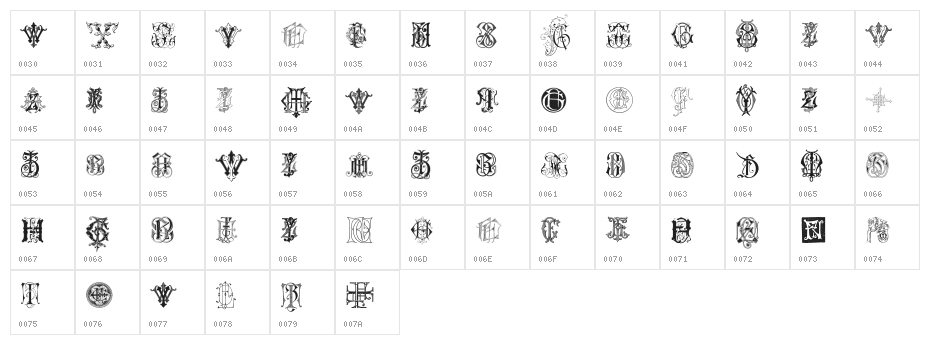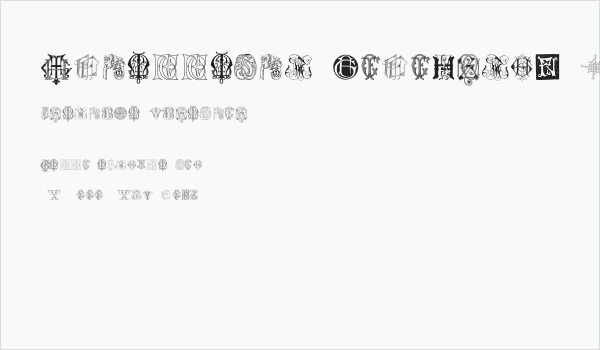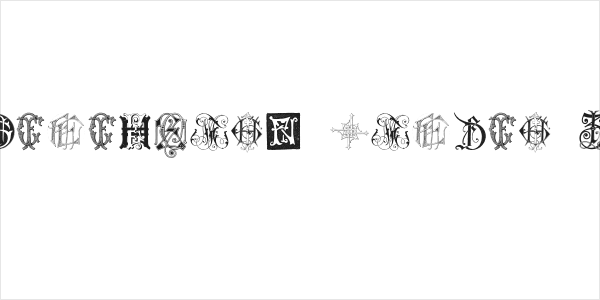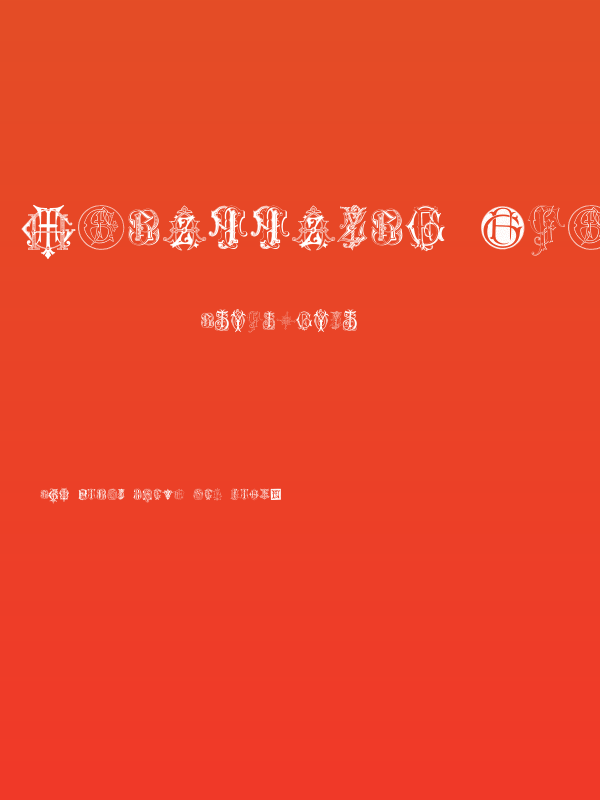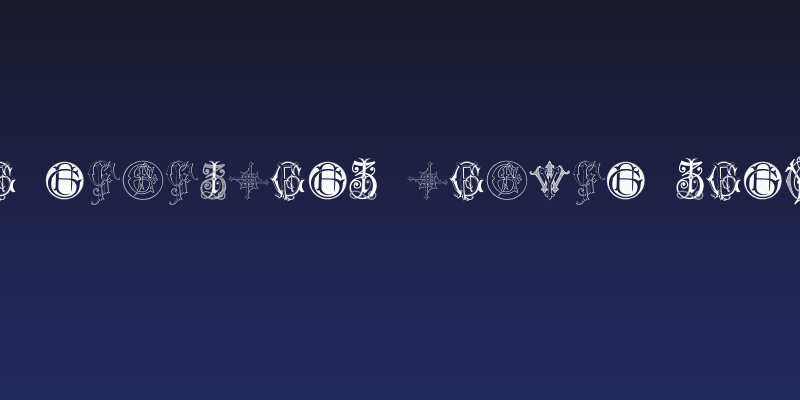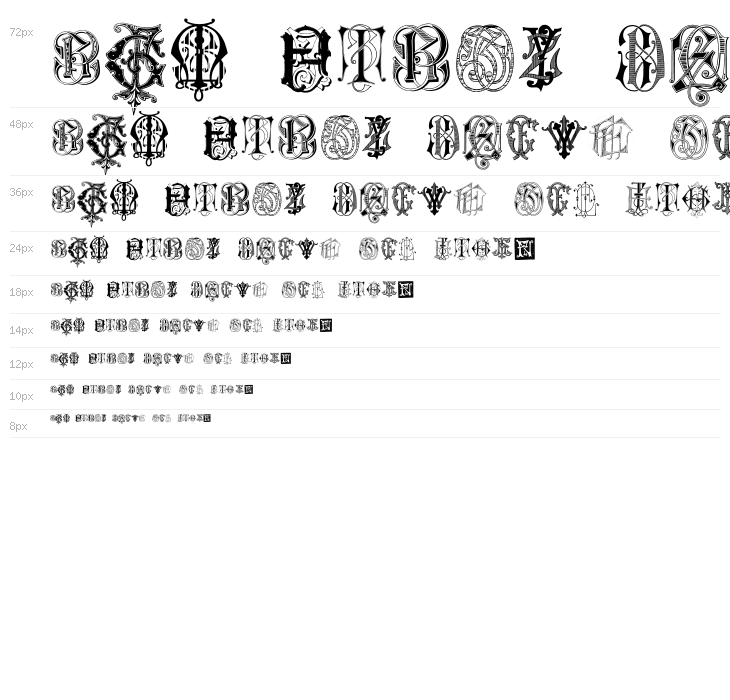
Intellecta Monograms Random Samples Seven Font
Intellecta Monograms Random Samples Seven Description
This font is an intricate and highly decorative typeface that features elaborate monogram-style letters. Each character is uniquely designed with ornate flourishes, intertwining lines, and detailed embellishments, creating a sense of elegance and sophistication. The letters are reminiscent of vintage calligraphy and heraldic symbols, with a strong emphasis on artistic expression. The complexity of the design makes it suitable for special occasions and projects that require a touch of luxury and historical charm.
| Overall Style | Vintage |
| Use Case | Logos, Invitations, Decorative elements |
| Proposed Projects | Ideal for wedding invitations, luxury branding, historical-themed projects, and decorative monograms. |